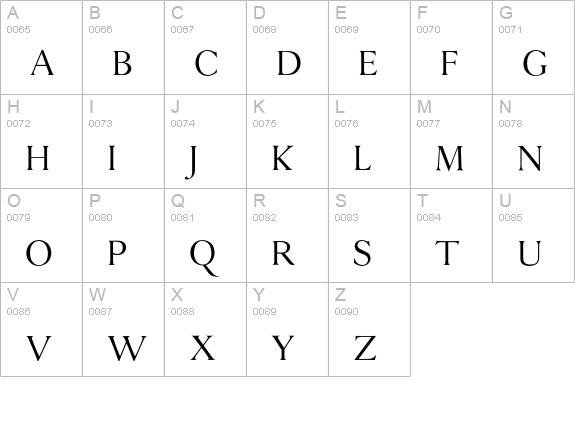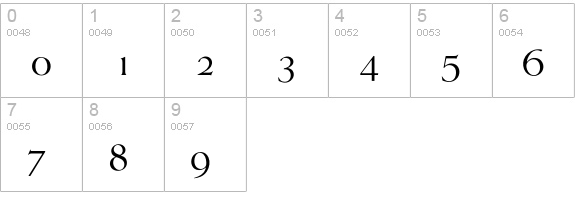
Malmoe Font Details
Introducing Malmoe, a stunning and versatile font that effortlessly combines elegance with a touch of modernity. Designed with meticulous attention to detail, this typeface is perfect for creating eye-catching designs that demand attention. With its sleek curves, clean lines, and balanced letterforms, Malmoe exudes a sense of sophistication and refinement. Whether you're designing a logo, a website, or a print publication, this font will add a touch of class and professionalism to your project. But what sets Malmoe apart from other fonts is its accessibility. We believe that great design should be available to everyone, which is why we are proud to offer Malmoe as a free download at FontsMarket.com. Now, you can elevate your designs without breaking the bank. This font offers a wide range of weights and styles, allowing you to choose the perfect variation for any project. From the bold and impactful Malmoe Black to the delicate and elegant Malmoe Light, you'll find the perfect option to suit your needs. Whether you're a seasoned designer or just starting out, Malmoe is easy to use and pairs well with other fonts, making it a versatile addition to your design toolkit. Its legibility and versatility make it suitable for a variety of applications, from headlines and titles to body text and captions. So why wait? Experience the beauty and versatility of Malmoe for yourself. Download it for free at FontsMarket.com and unlock a world of design possibilities. Elevate your projects with this exceptional font and leave a lasting impression on your audience.